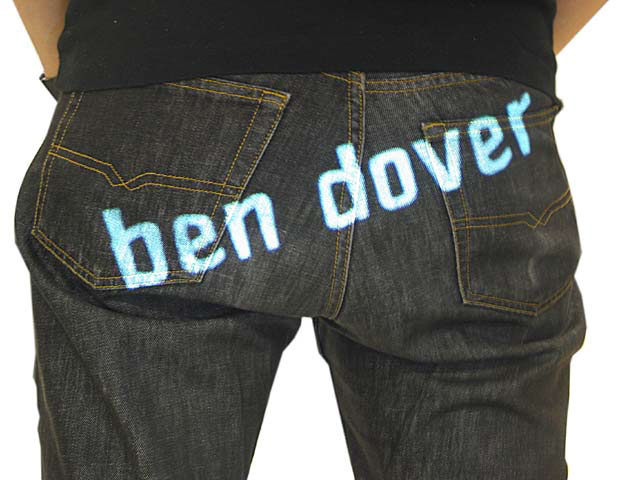
some results
Here you can see some type done in the workshops. To get more info about a specific type/result, just click on 'more about this' under the picture. It will link you directly to the workshop, where this type was developed.
Shining type, typeface projected at night over a dark Finnish city -